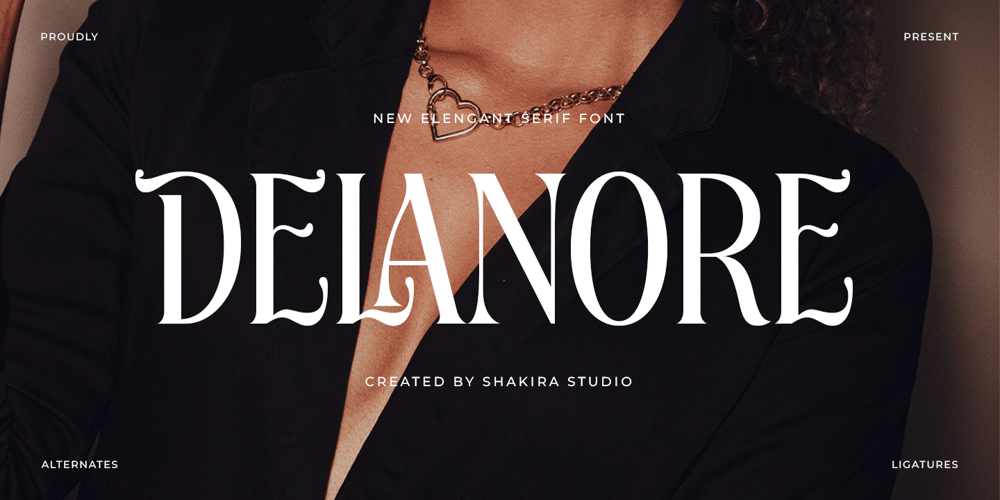
Delanore
Delanore font
Delanore Font Family was designed by Idhham Cholid Rikzano Yahya and published by Shakira Studio. Delanore contains 2 styles and family package options. “Introducing Delanore, an Elegant Serif font that exudes sophistication and class. Perfect for luxury branding, editorial design, and high-end projects, this typeface offers both regular and italic versions. Delanore is crafted with exquisite attention to detail, featuring stylish alternates and ligatures to elevate your designs. Add a touch of elegance and refinement to your work with Delanore.”Here’s what you get: Regular & Italic All Multilingual symbol Opentype features ( ligature, alternate ) Accessible in the Adobe Illustrator, Adobe Photoshop, Adobe InDesign, even work on Microsoft Word. PUA Encoded Characters – Fully accessible without additional design software. Multilingual character supports : (Afrikaans, Albanian, Catalan, Croatian, Czech, Danish, Dutch, English, Estonian, Finnish, French, German, Hungarian, Icelandic, Italian, Lithuanian, Maltese, Norwegian, Polish, Portuguese, Slovenian, Spanish, Swedish, Turkish, Zulu)Thank you!Shakira Studio